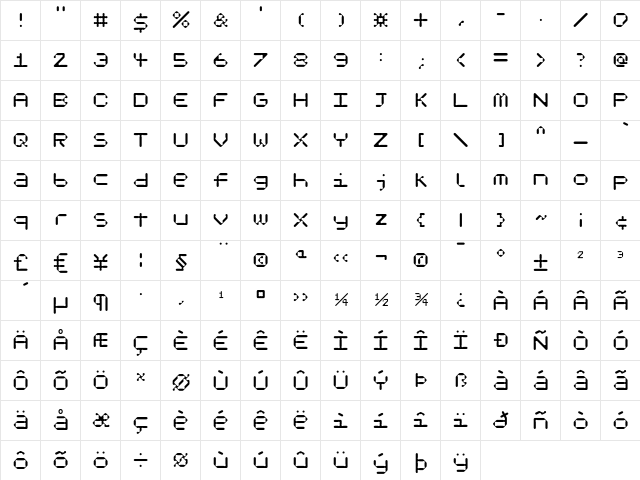
Koko One Font Preview
Koko One
Koko One Font Details
| Style | One |
Design Context for Koko Typeface
Koko is a composed and adaptable typeface that performs quietly and consistently across a wide range of design contexts.